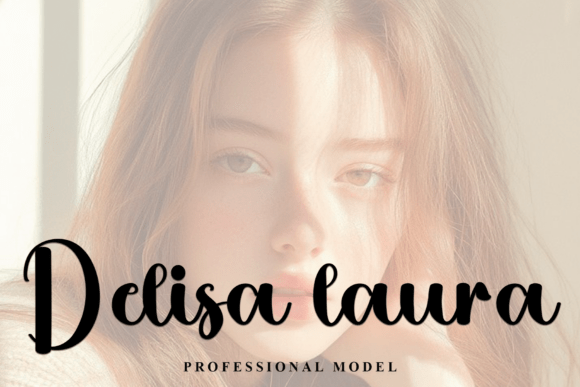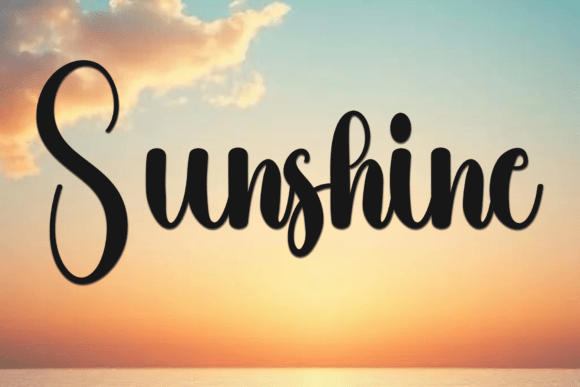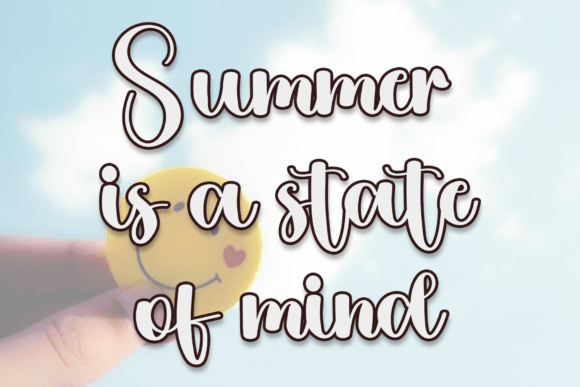
Introduction to Santa Wedding Font
As you sit down to design your holiday greeting cards or gift tags, you can’t help but feel a sense of excitement and joy. The festive season is a time for creativity and self-expression, and the right font can make all the difference. That’s where the Santa Wedding Font comes in – a high-quality, festive typeface that captures the magic of the holiday season.
With its whimsical flair and decorative elements, the Santa Wedding Font is the perfect design resource for any creative project. Whether you’re looking to add a touch of nostalgia or a dash of whimsy to your designs, this font is sure to shine. And with its transparent background, you can easily layer it over your images or use it as a standalone element.
Key Features of Santa Wedding Font
- High-quality design resource for creative projects, perfect for Christmas or winter-themed designs.
- Unique and festive design elements, making it ideal for Santa-themed wedding invitations, decorations, and other creative projects.
Honest Review: Santa Wedding Font
I recently came across the Santa Wedding Font, and I must say it’s a great addition to any designer’s library. This high-quality font is a fantastic design resource for any creative project that requires a touch of festive flair.
- ✨ The font is incredibly versatile and can be used for a variety of projects, from holiday cards to wedding invitations.
Overall, I’m impressed with the Santa Wedding Font. It’s a great resource for designers who want to add a touch of holiday cheer to their projects. While it may have some limitations, it’s definitely worth considering for your next creative project.
Tips for Getting the Most Out of the Santa Wedding Font
For the best results, use the Santa Wedding Font in conjunction with a high-quality design resource, such as a free download of a matching background or graphics. Experiment with different font sizes and styles to create a unique and creative look. Don’t be afraid to try out different combinations to achieve the perfect design.
The Santa Wedding Font is perfect for holiday-themed projects, such as Christmas cards, party invitations, and wedding invitations. It’s also great for creating a festive and fun atmosphere in your home decor or gift wrapping. With its transparent background and high-quality design, the Santa Wedding Font is a versatile resource for any creative project.